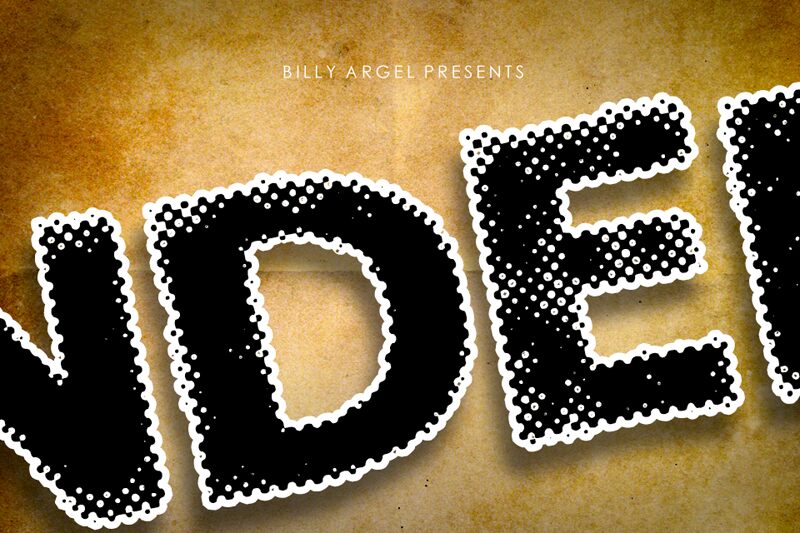
UNDERTOWN, a bold and distorted display font by Billy Argel Fonts, is perfect for adding a touch of edgy creativity to any project. The semi-expanded width gives the font a unique and eye-catching look that will make your designs stand out. This typeface is perfect for projects like album covers, movie posters, or any other design that needs to convey an alternative or underground aesthetic. Use UNDERTOWN to give your designs an unmistakable edge and let your creativity run wild!